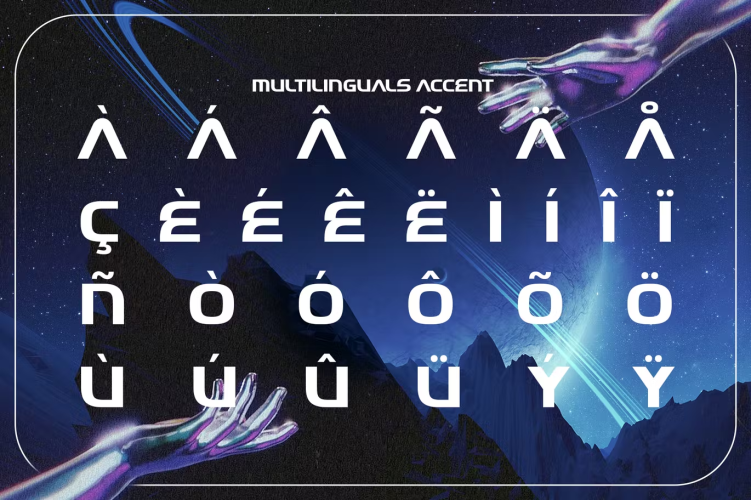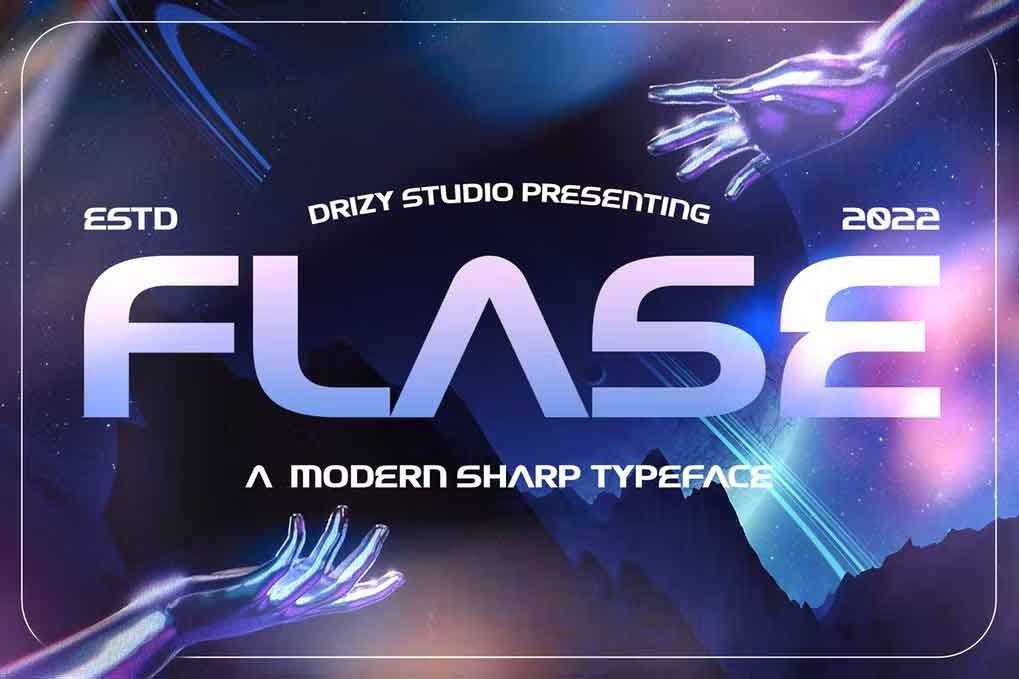
Flase Font
Flase font is a special font for modern unique design look. Offering all the basic styles you will need for a successful project.
Where Flase Font works best
Flase Font keeps its shape at 14 and 16 pixels, which is where interface text actually lives. Numbers and capitals stay distinguishable in tables.
Presentations are read at a distance; a clean sans with a strong bold is the safest hierarchy you can build in a hurry.
Simple letterforms survive angles, glare and movement, so Flase Font suits door signs, menus boards and exhibition panels.
What kind of work does Flase Font suit?
It sits in the Sans Serif Fonts group and reads as modern, professional, sans serif, sans serif fonts. That makes it a candidate wherever those qualities help: headings, packaging, social graphics and brand work. Set it at the size you plan to use before deciding.